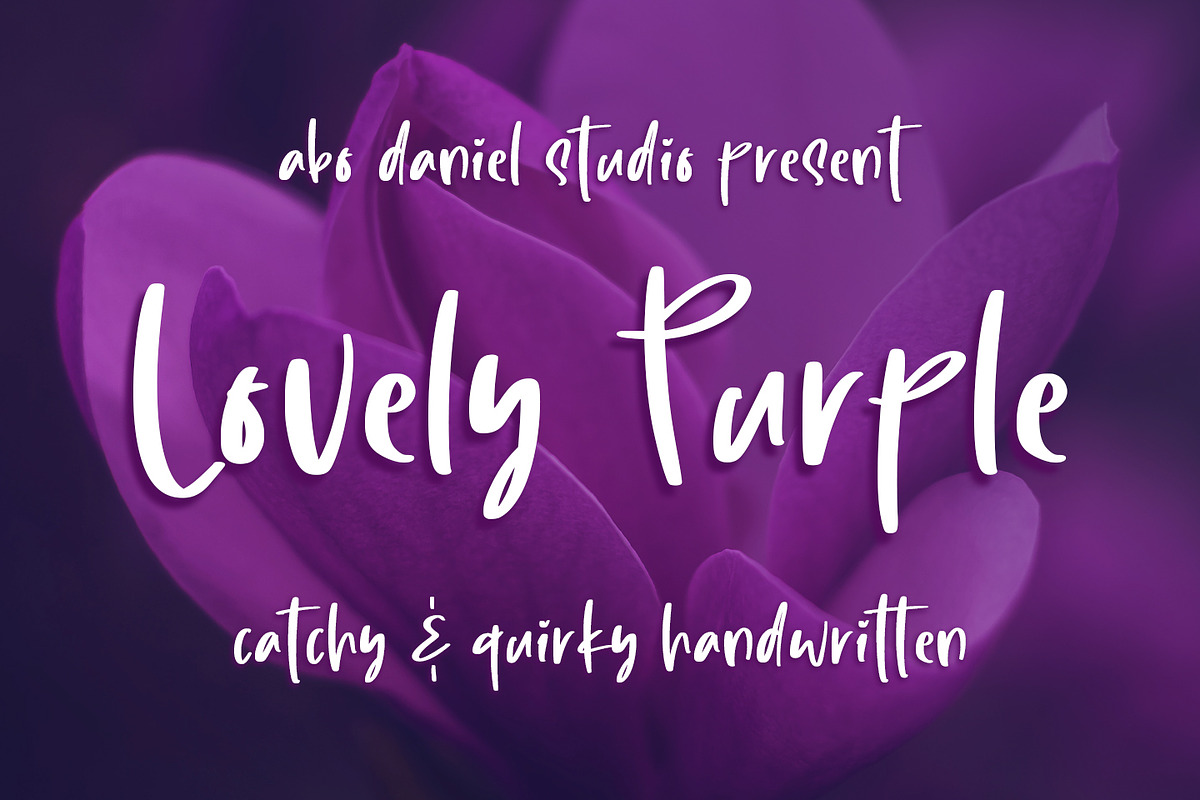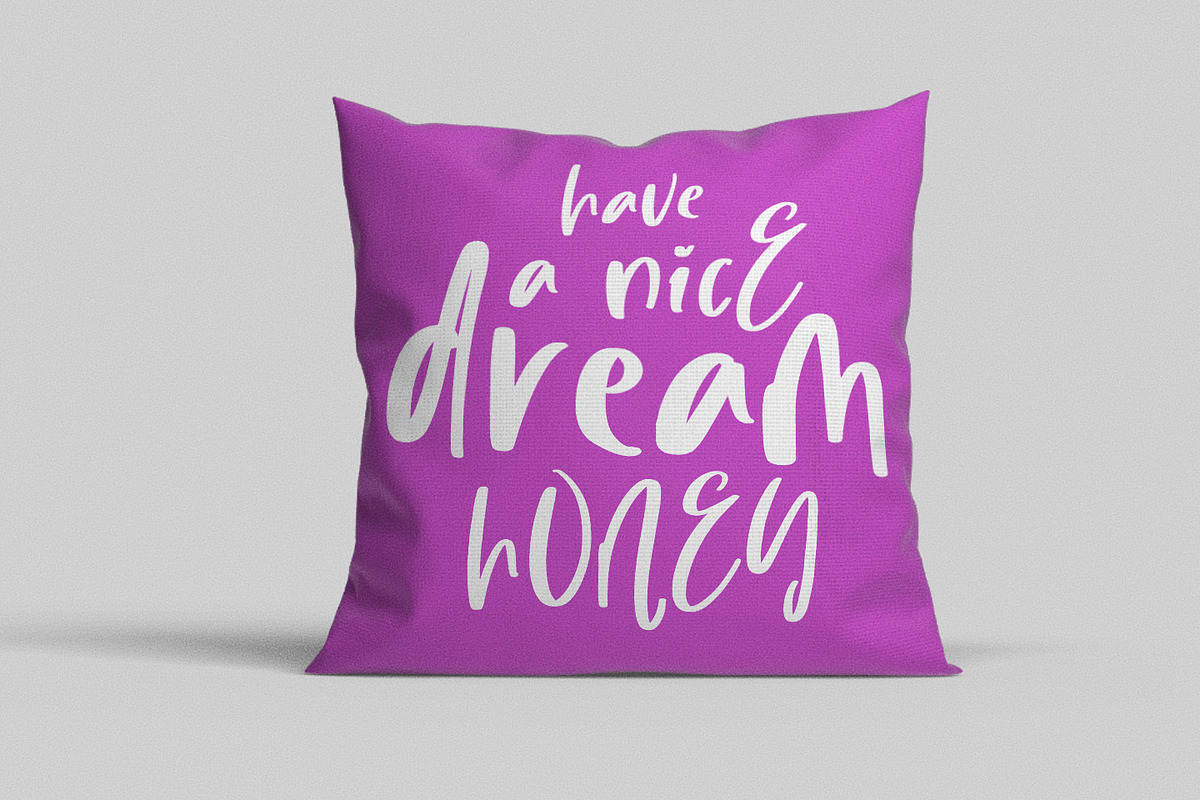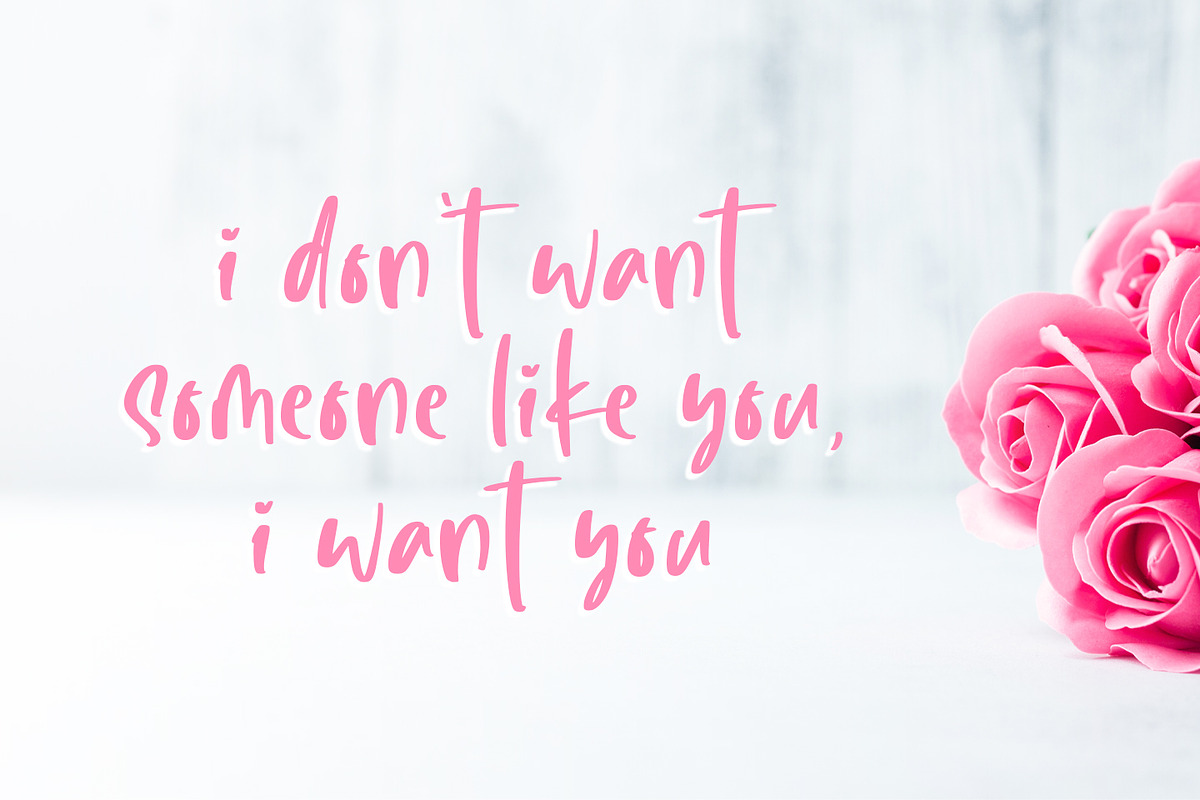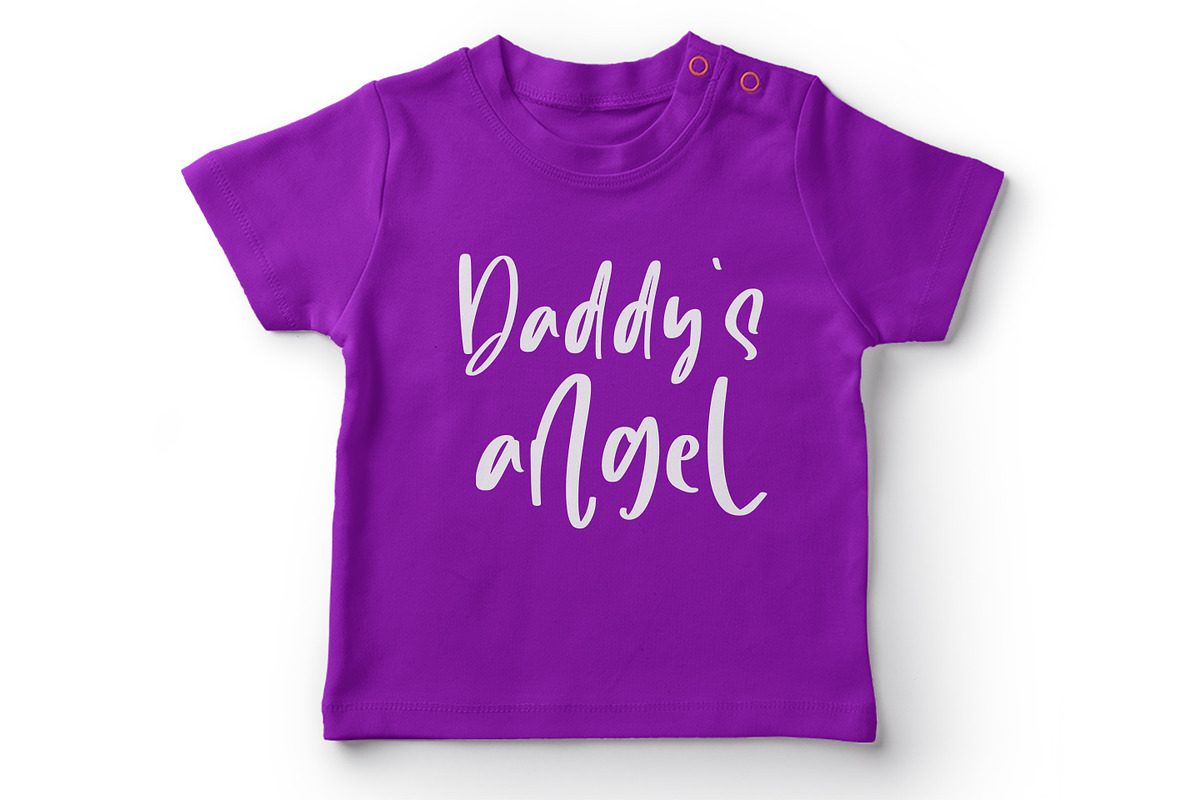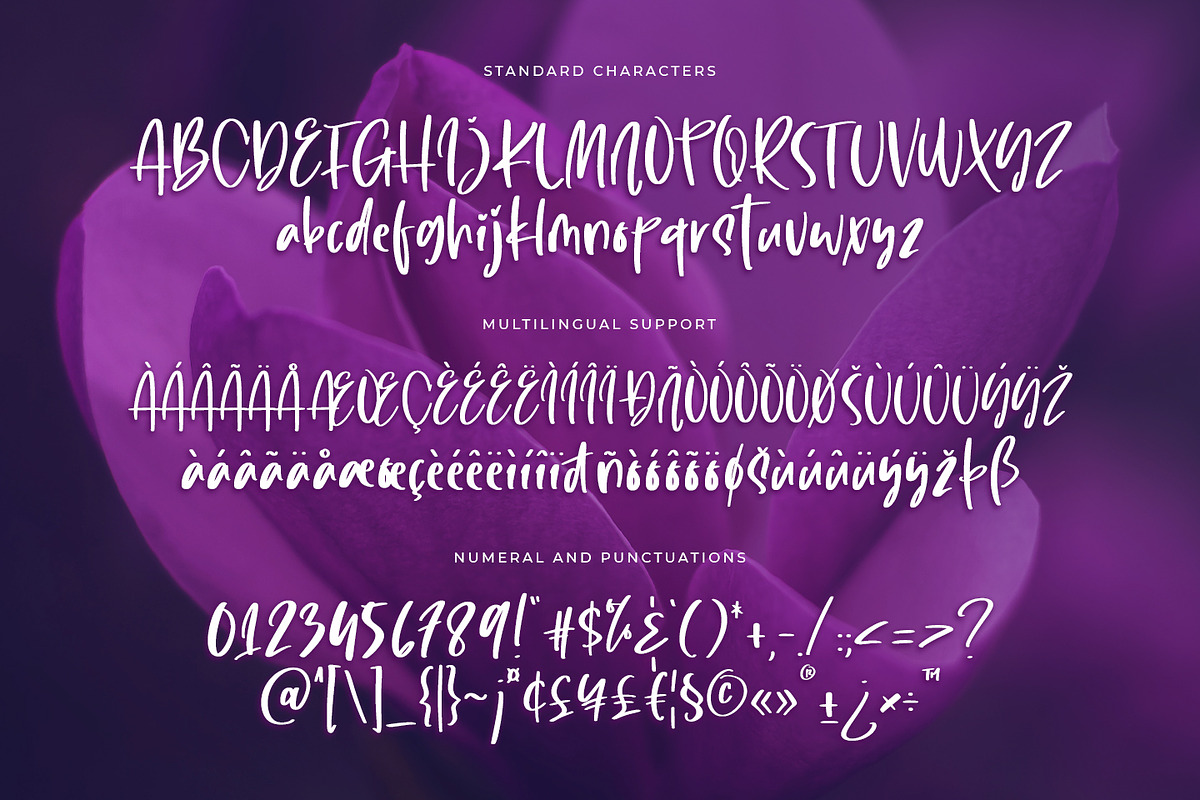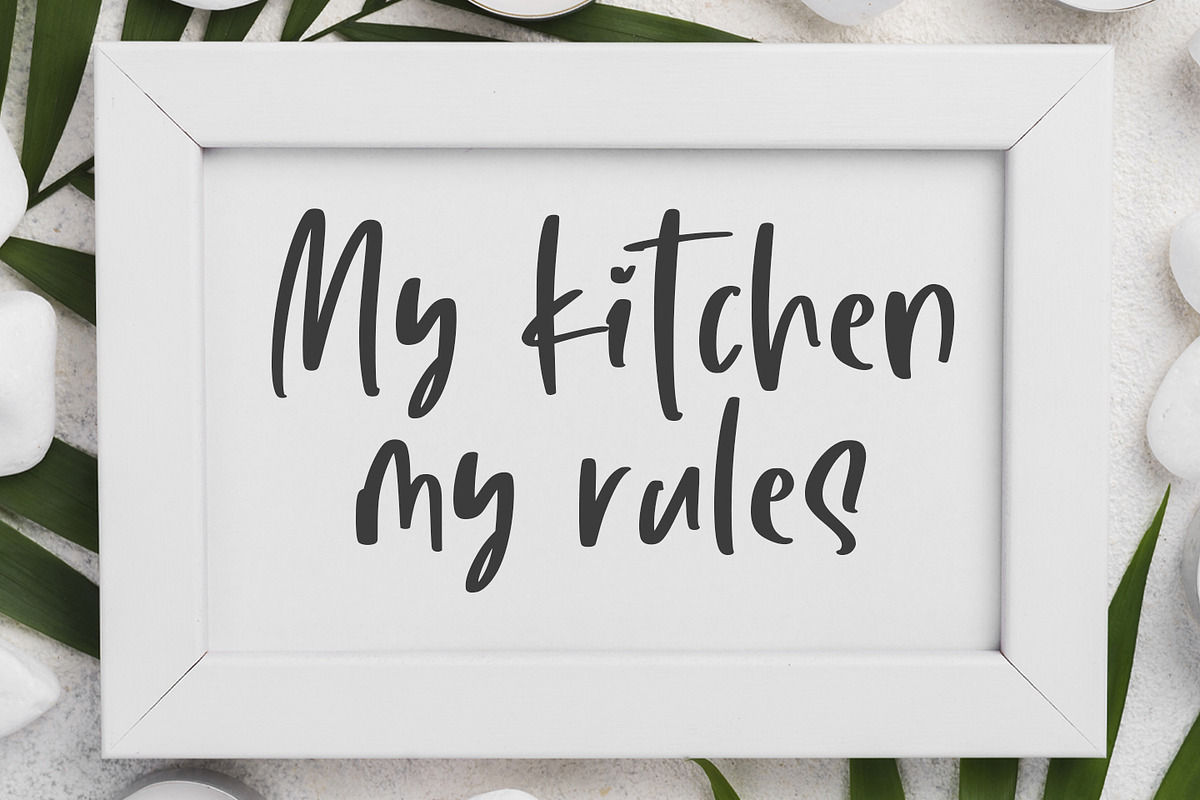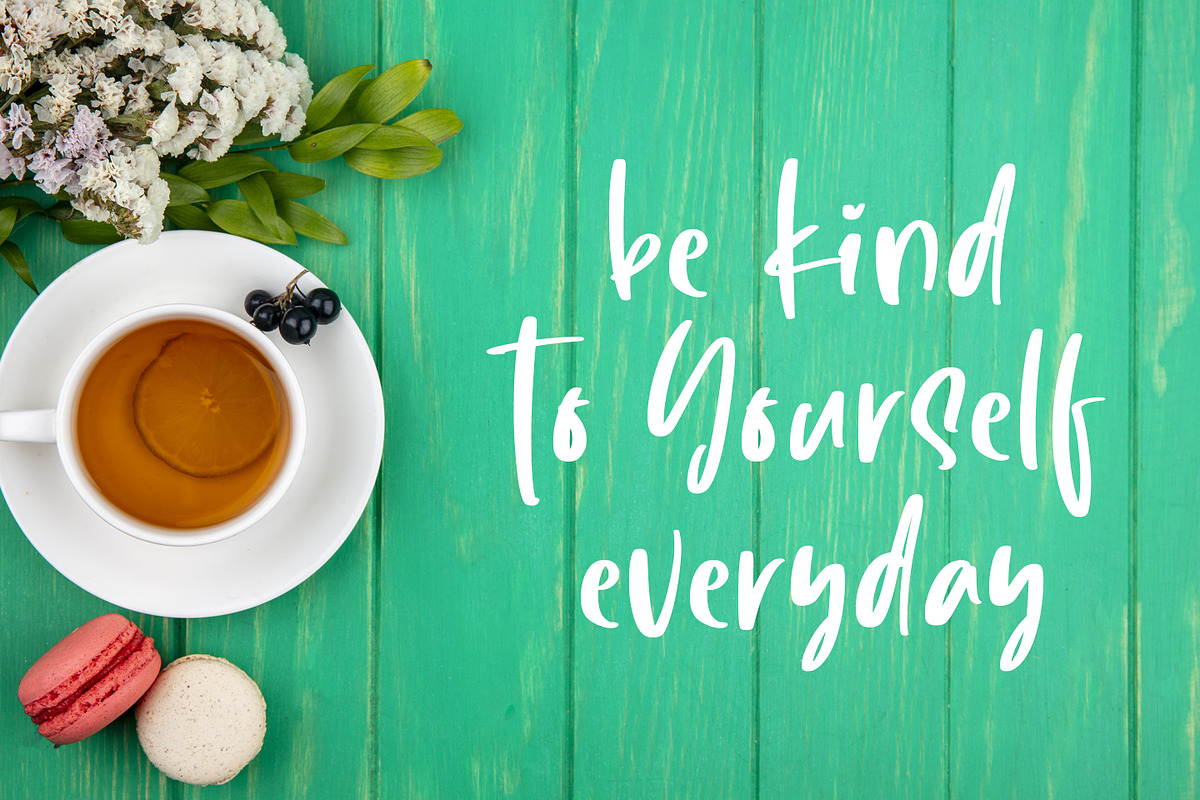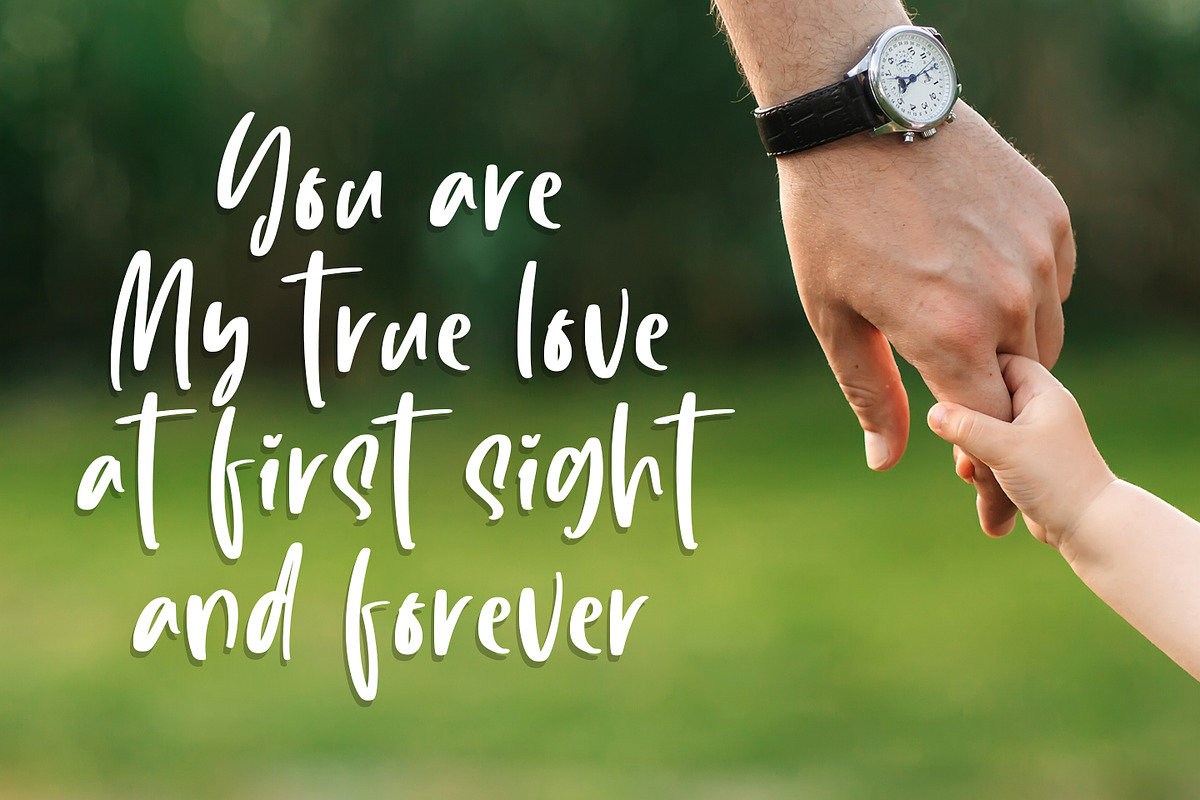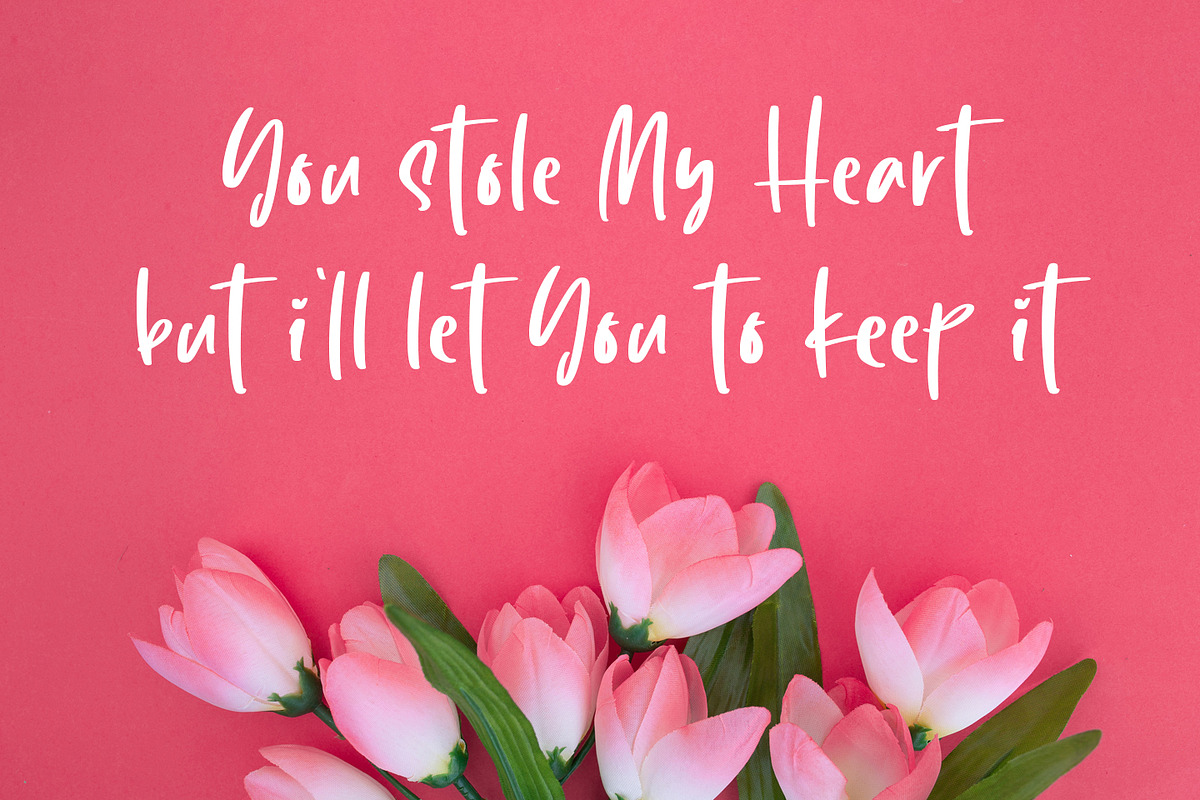
Lovely Purple
introducing
LOVELY PURPLE - catchy and quirky handwritten -
LOVELY PURPLE is natural handwritten font.
It is great for quotes, card, banner, book, cutting, silhouette, social media content and anything of craft project.
Lowercase and uppercase are matching each other, so you can combine them as you want. I created some ligatures to make it look so natural.
Lowercase
Number & punctuations